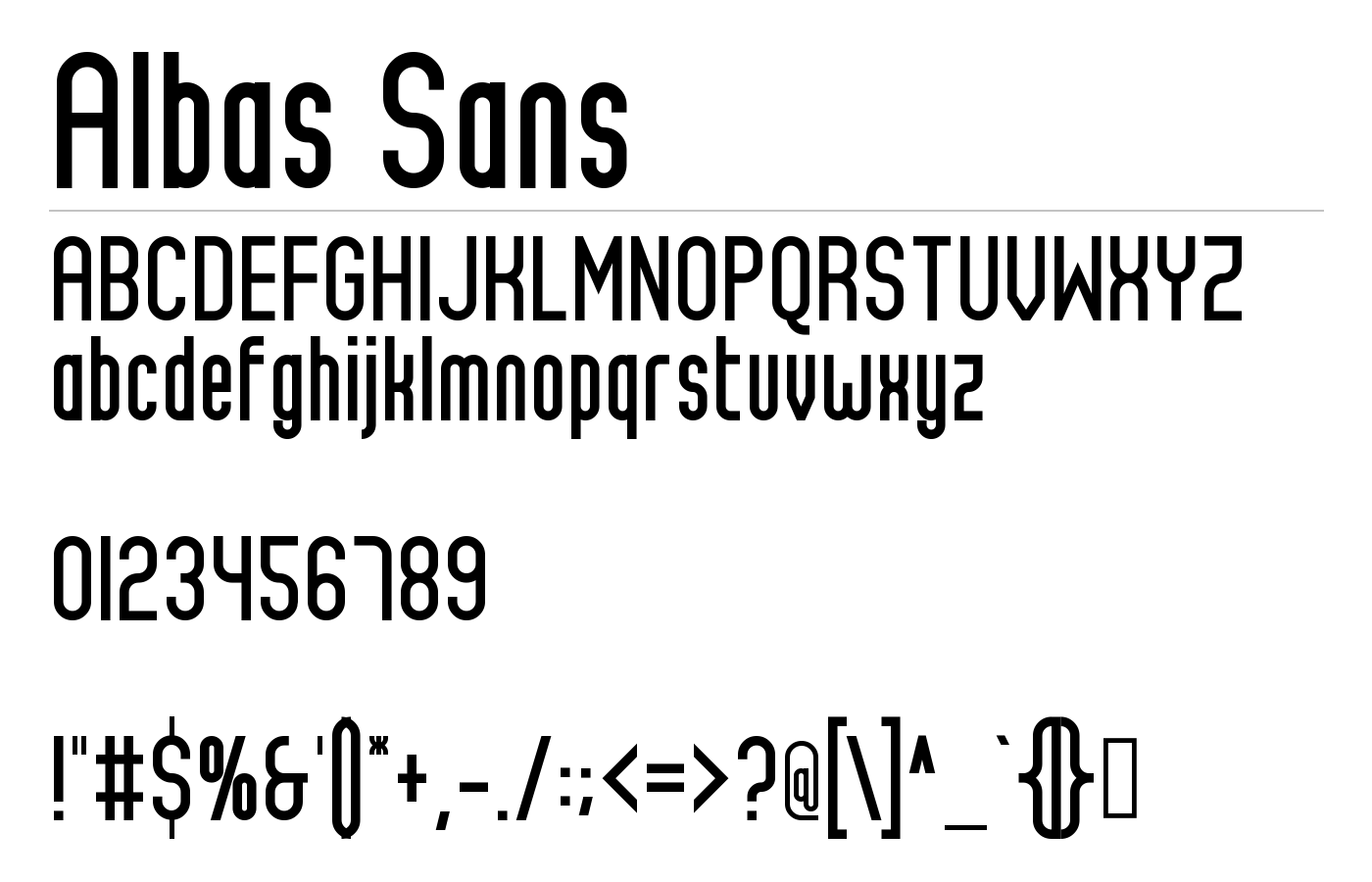
Albas Sans is a modern, condensed sans serif font characterized by its tall, narrow letterforms and consistent stroke weight, giving it a clean and streamlined look. Its geometric structure and unique details, like the curved tails and single-story forms, lend a contemporary and slightly tech-savvy feel, making it ideal for sleek, minimalist branding, headlines, and digital use where space efficiency and clarity are important. This font works well for fashion, editorial, and tech industries looking to convey sophistication with a modern edge.
Albas Sans Font
About Albas Sans Font
| Font family | Albas Sans Font |